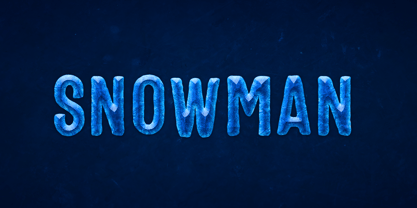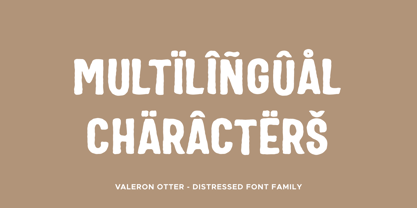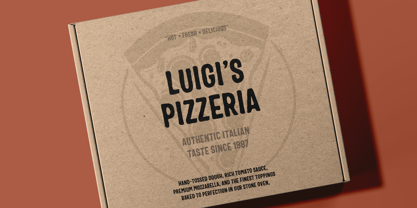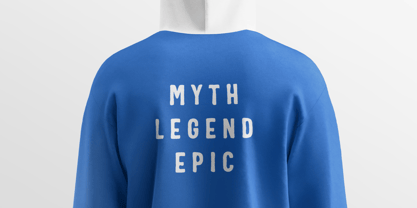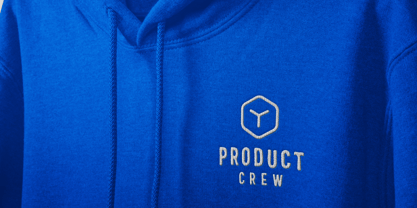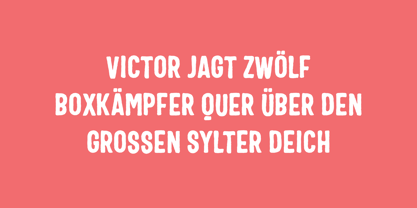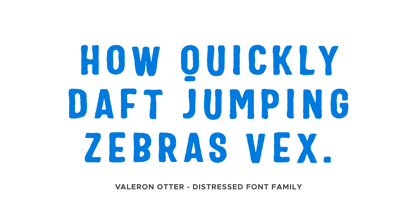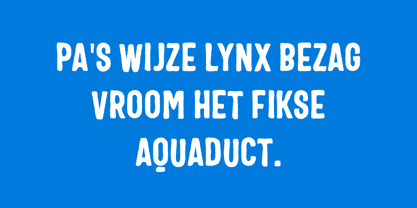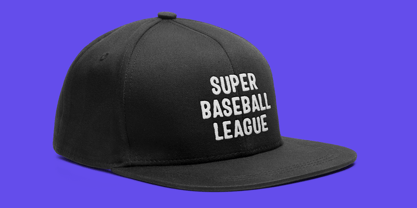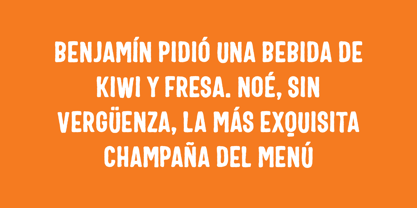
Valeron Otter is a bold distressed display typeface designed with expressive and textured character. Built to evoke raw energy, decay, and organic imperfection, it blends hand-crafted roughness with modern typography. The irregular contours, eroded strokes, and worn surfaces give the typeface a gritty personality that feels alive on the page.
This typeface was created for designers who want typography that breaks away from sterile perfection. The “melted edge” aesthetic produces letters that feel weathered, scratched, and naturally aged—perfect for projects that require authenticity, rebellion, or handcrafted charm.
Valeron Otter includes an extensive family of 40 font styles, ranging from textured fills to outline variants and expressive italics. Each style introduces a different level of distress, allowing designers to move from subtle erosion to heavily degraded lettering.
The family includes styles such as Brush, Cut, Eroded, Grit, Ink, Rough, Rust, Scratch, and Worn, each paired with outline and italic versions. These variations give you maximum flexibility when creating layered typography, poster designs, packaging, album covers, apparel graphics, branding, and experimental layouts.
The textured surfaces and irregular structure make Valeron Otter especially effective in grunge, vintage, horror, underground, streetwear, and experimental design aesthetics.
Despite its rough character, the typeface maintains strong readability and balanced proportions. It also supports a wide range of Latin-based languages, making it suitable for international design projects.
Valeron Otter